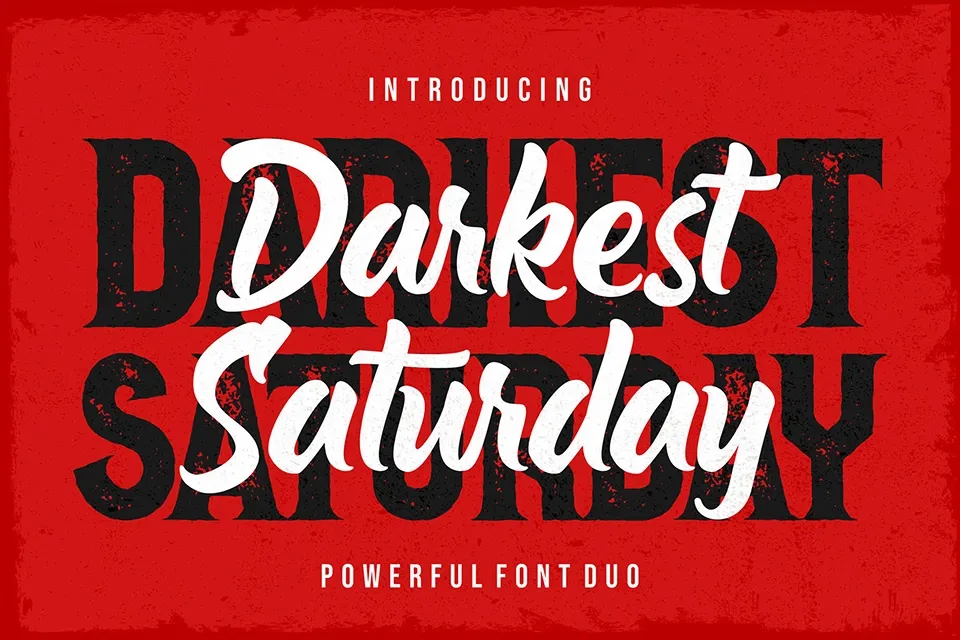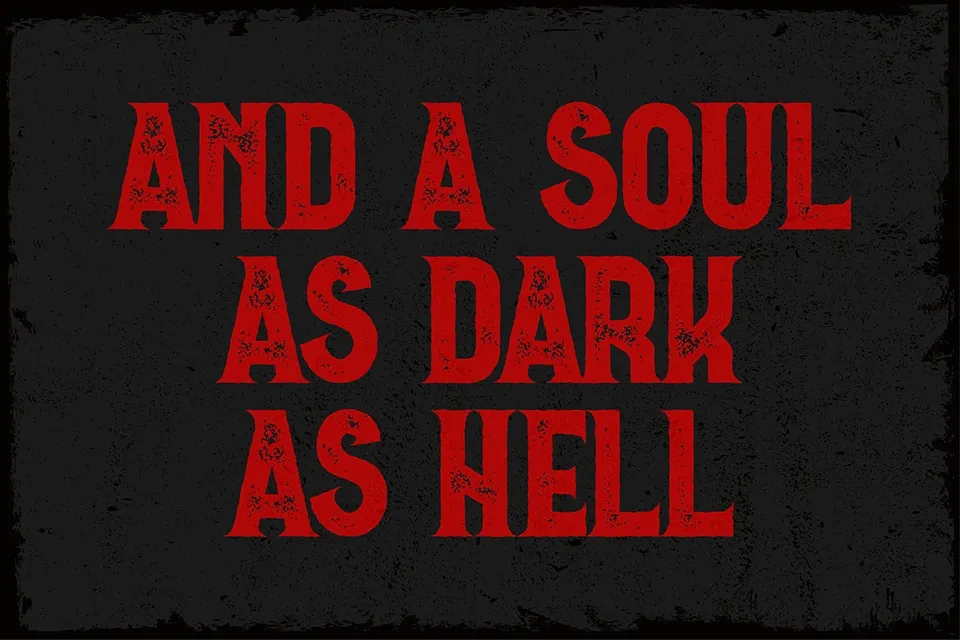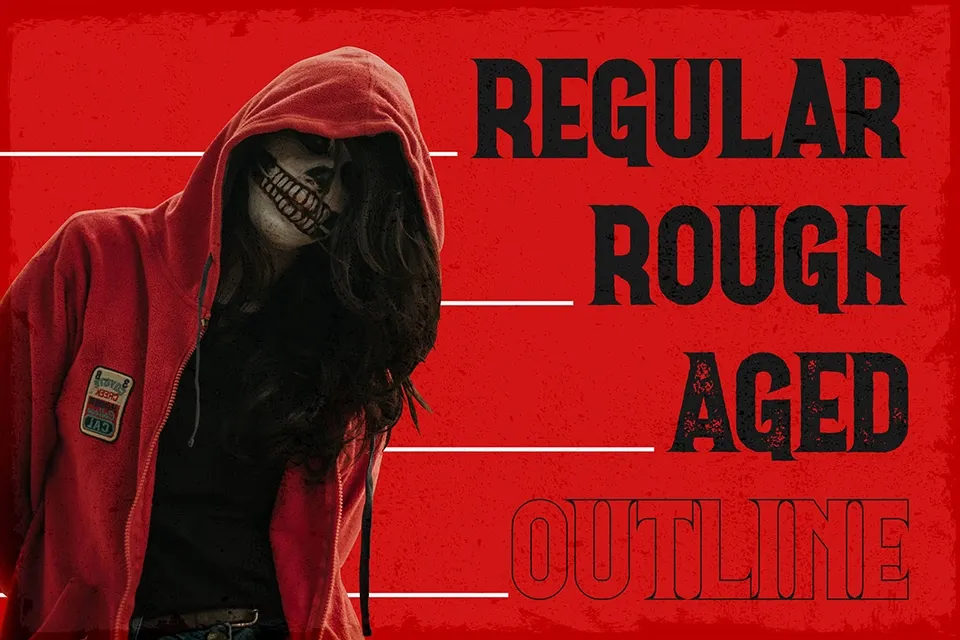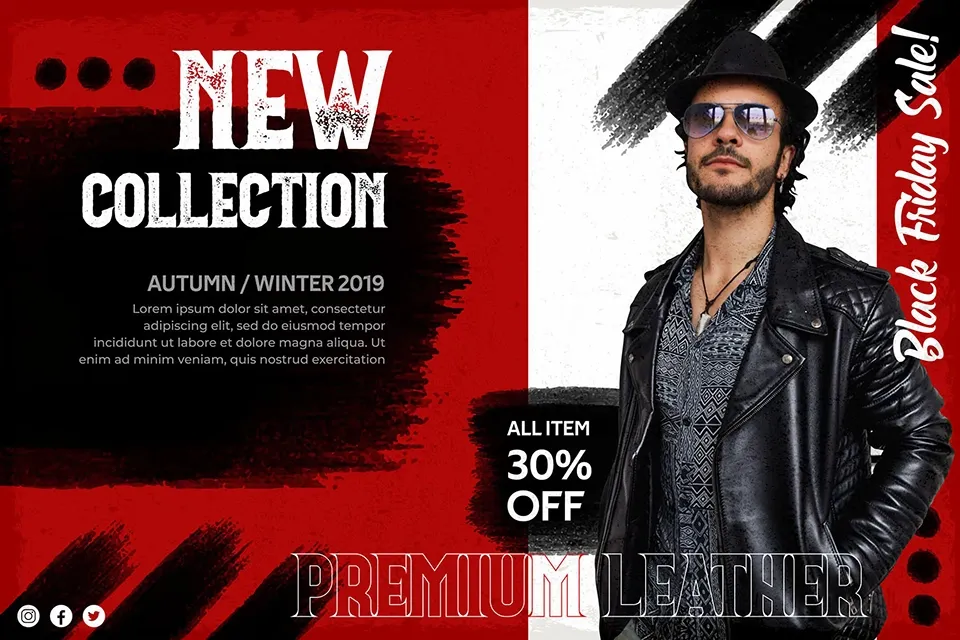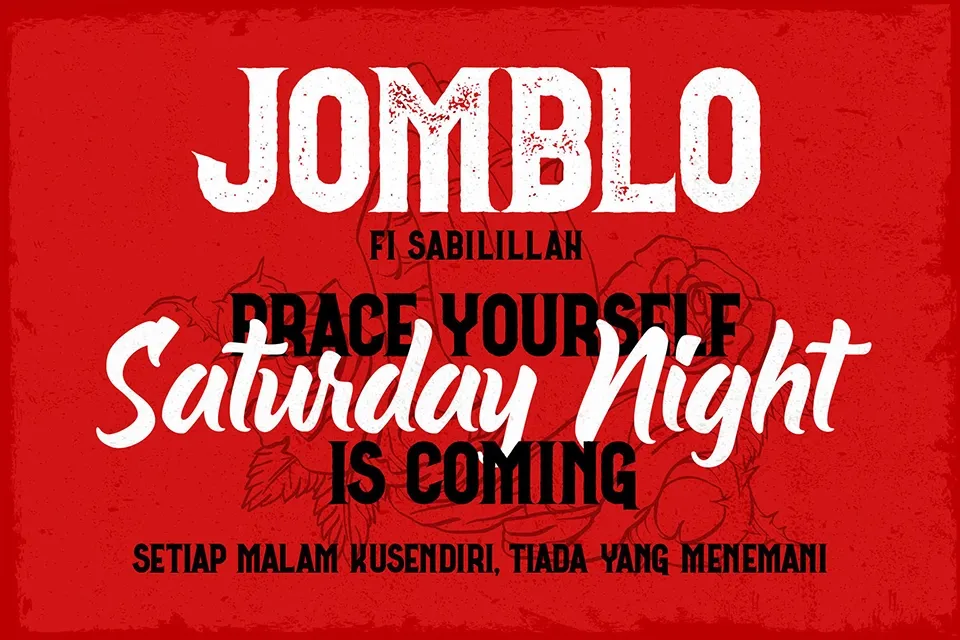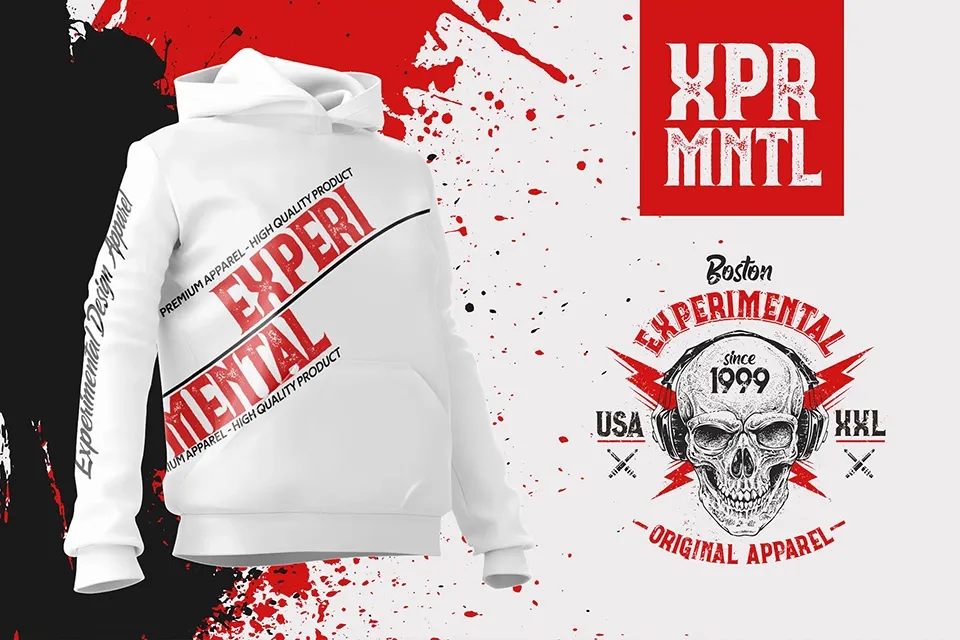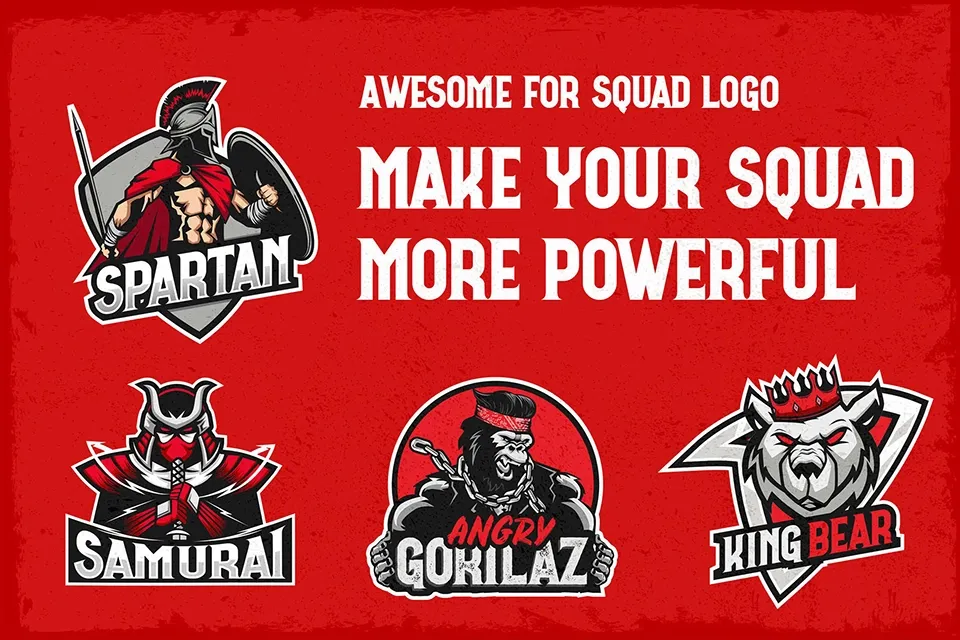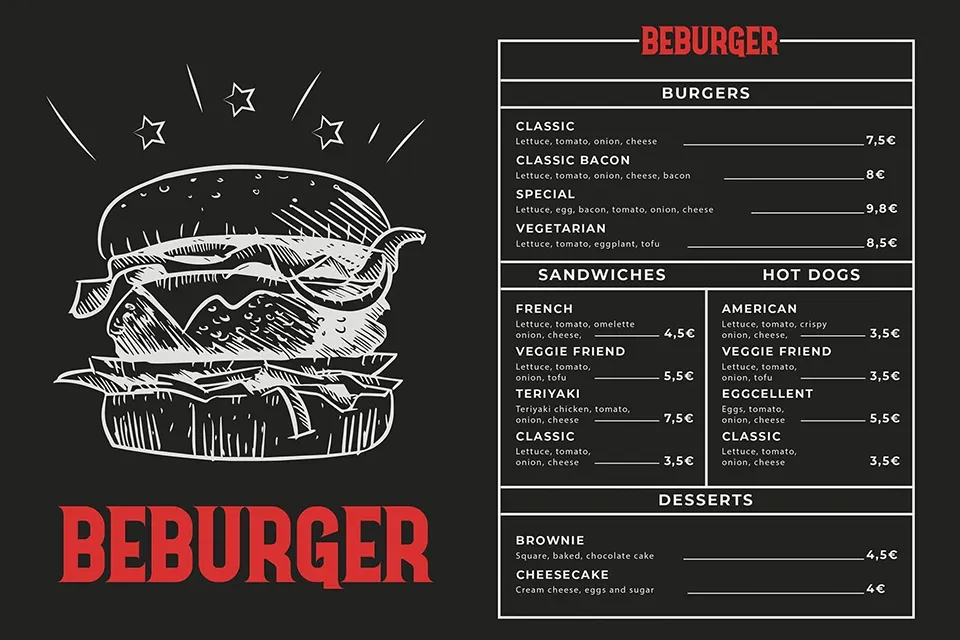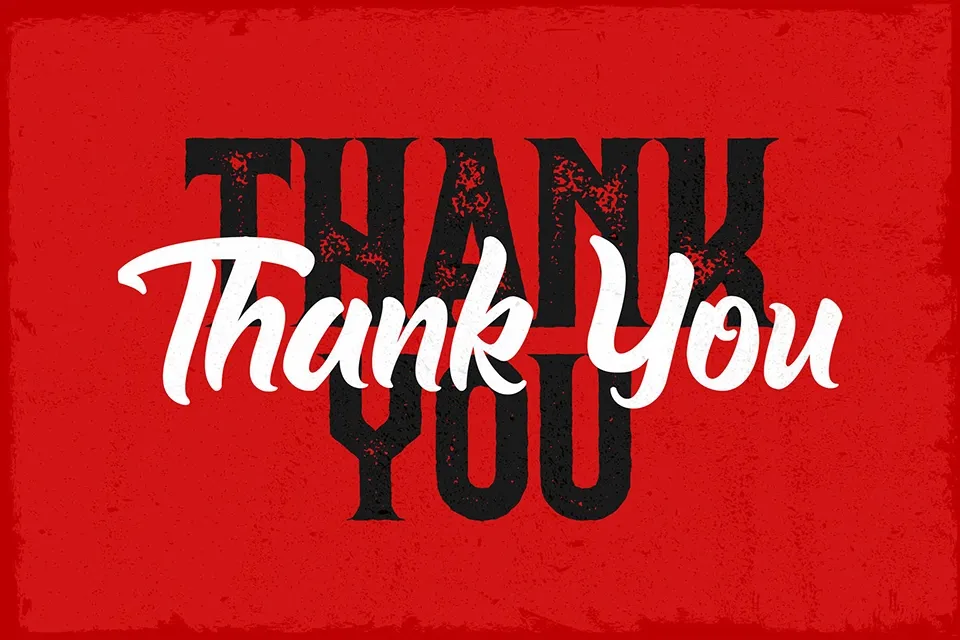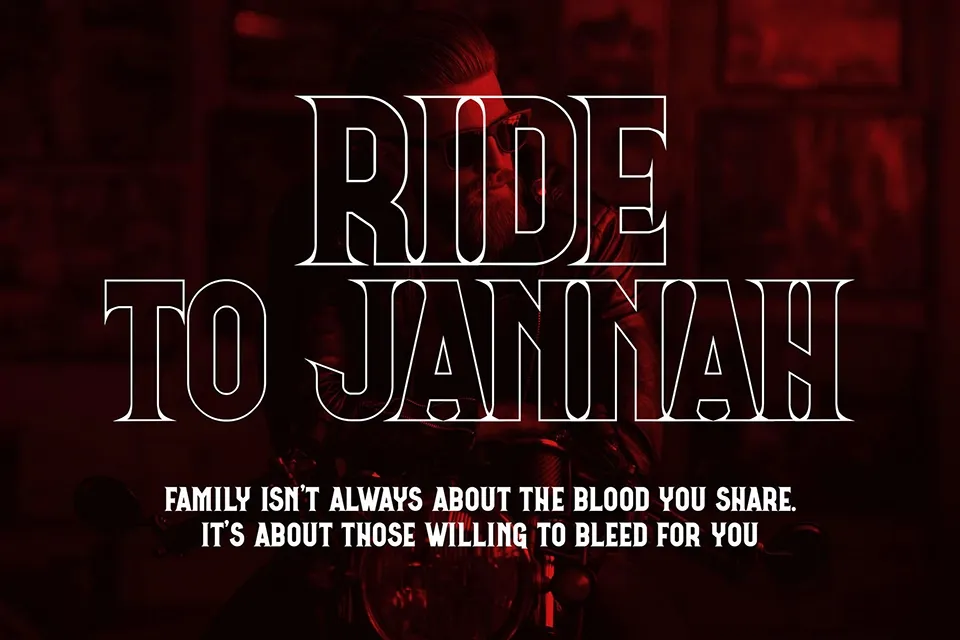
Darkest Saturday Font Family
Darkest Saturday Font Family is a bold and dynamic font duo that combines strong vintage-inspired serif characters with elegant script lettering. This powerful pairing creates a striking contrast, making it perfect for eye-catching designs such as logos, posters, headlines, branding, and merchandise. The serif font exudes strength and grit with its textured and bold appearance, while the script font adds a touch of sophistication and fluidity. Together, they offer versatility and creativity for both modern and retro-themed projects. Darkest Saturday Font Family is ideal for designers seeking a unique combination of power and elegance to make their work stand out.